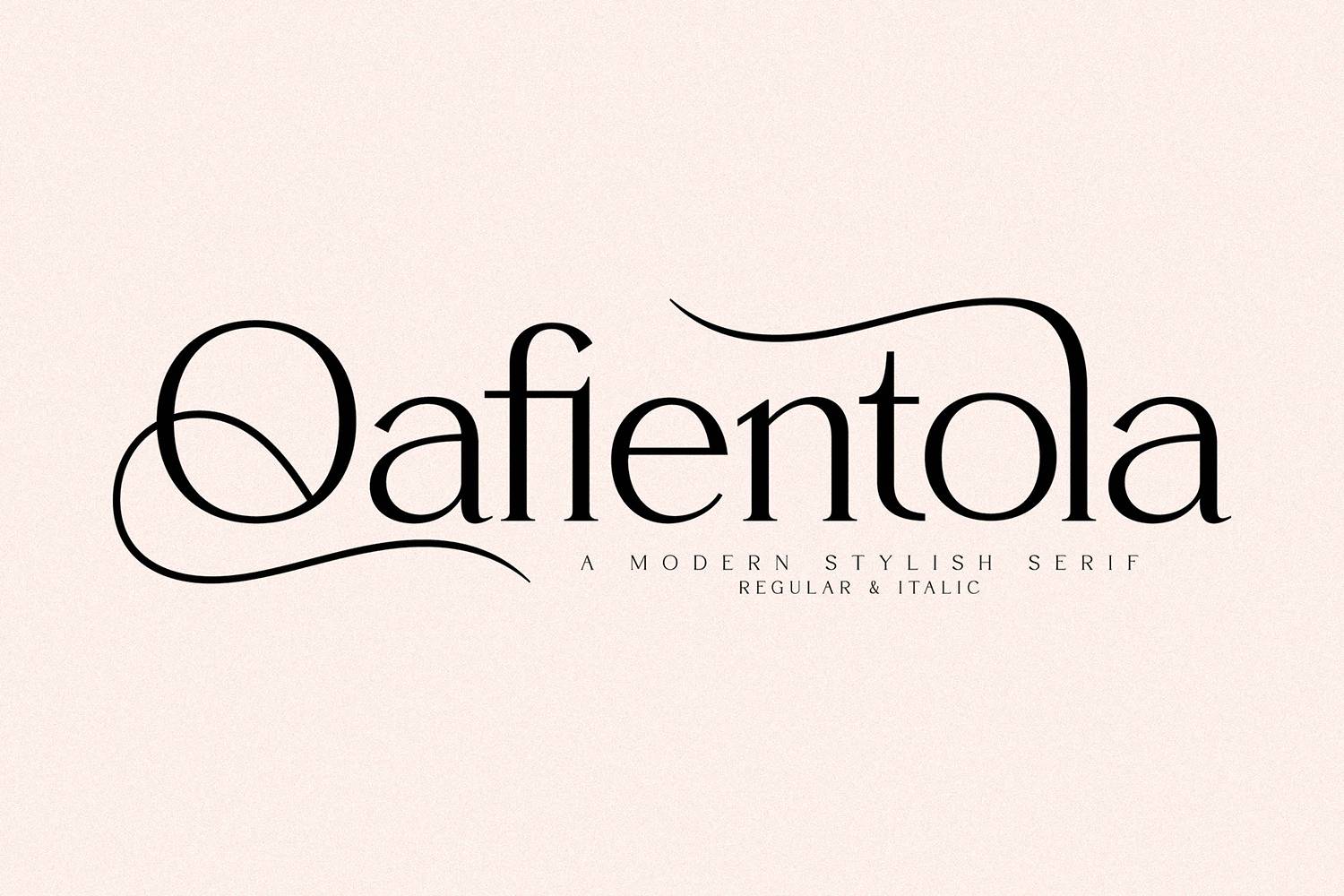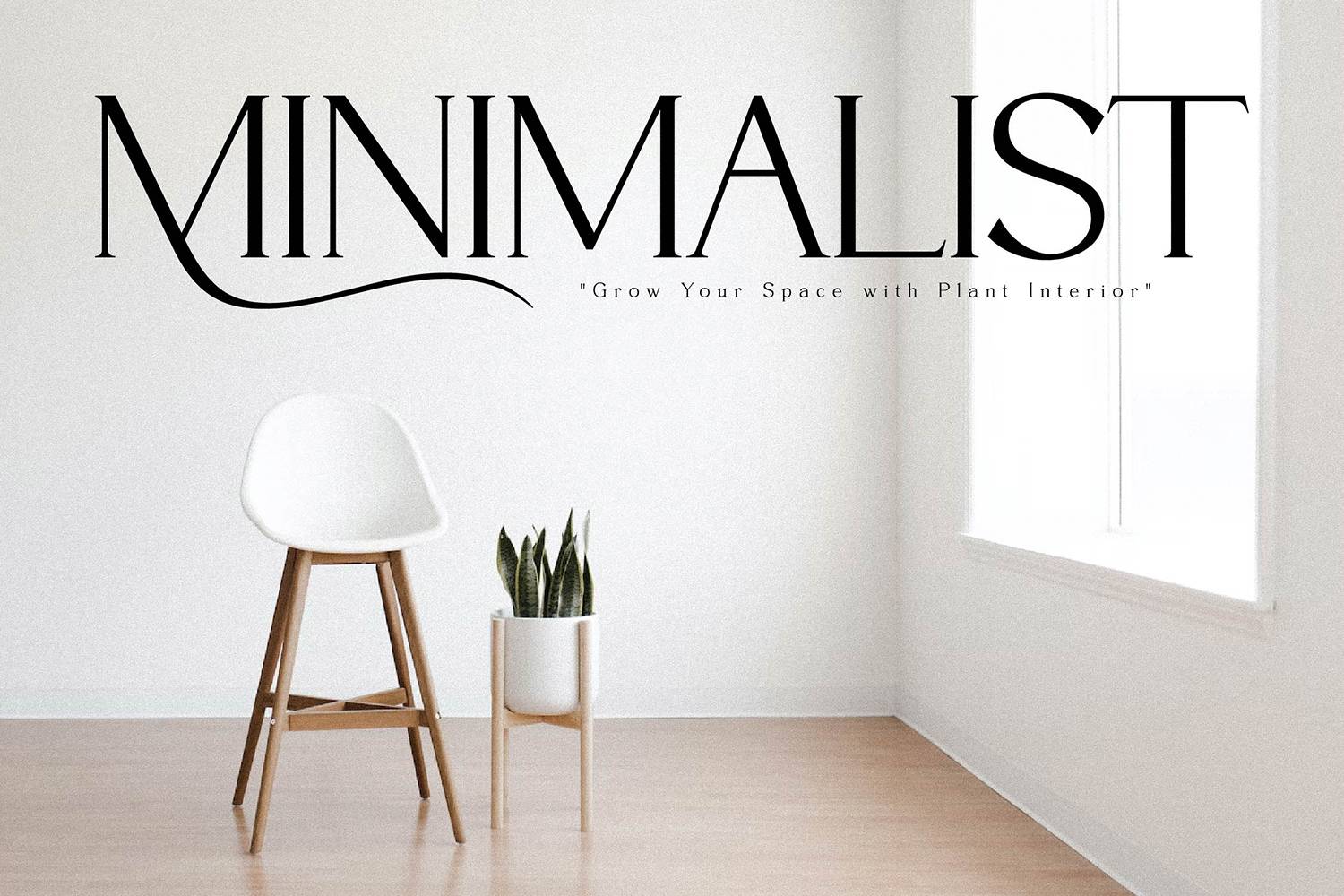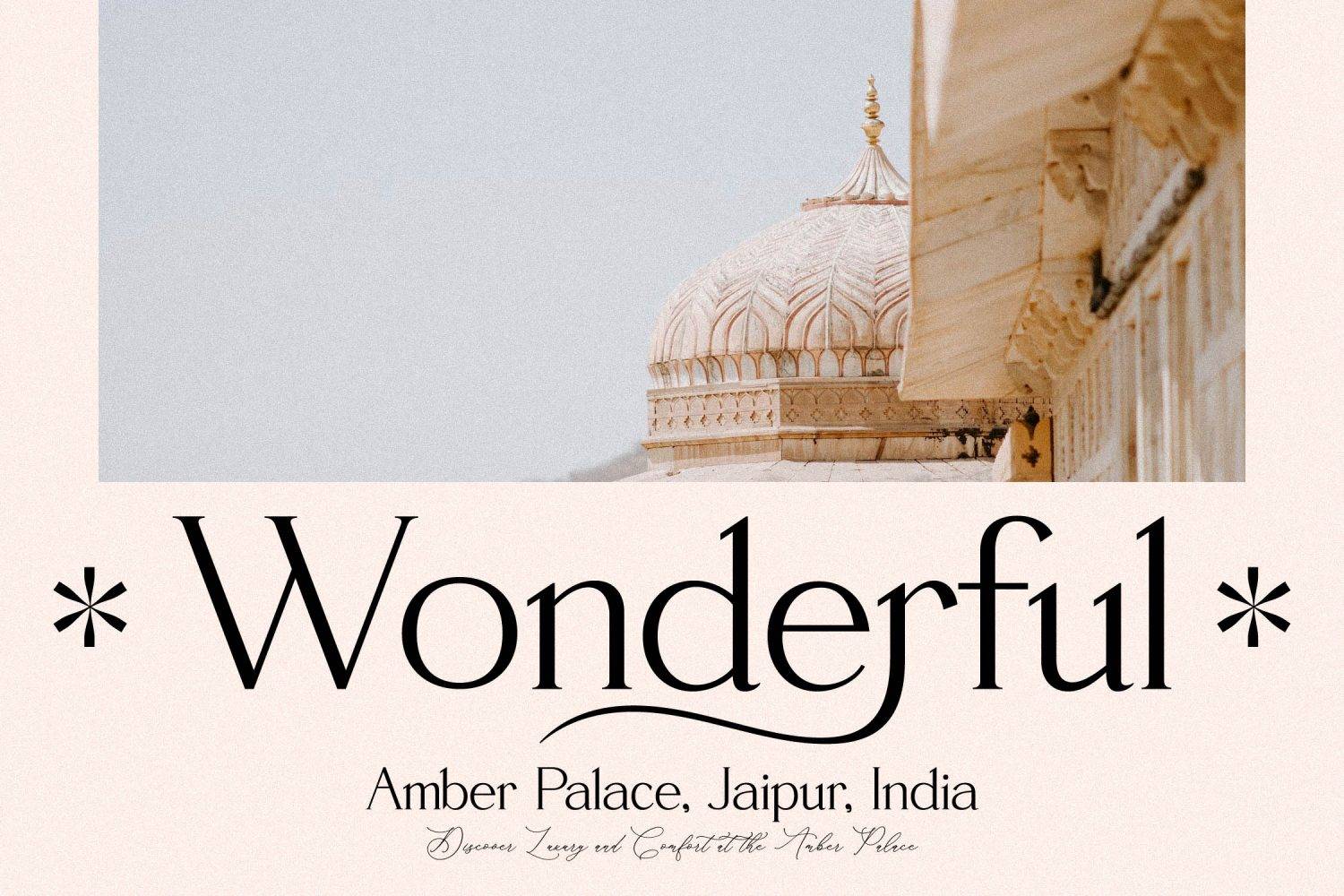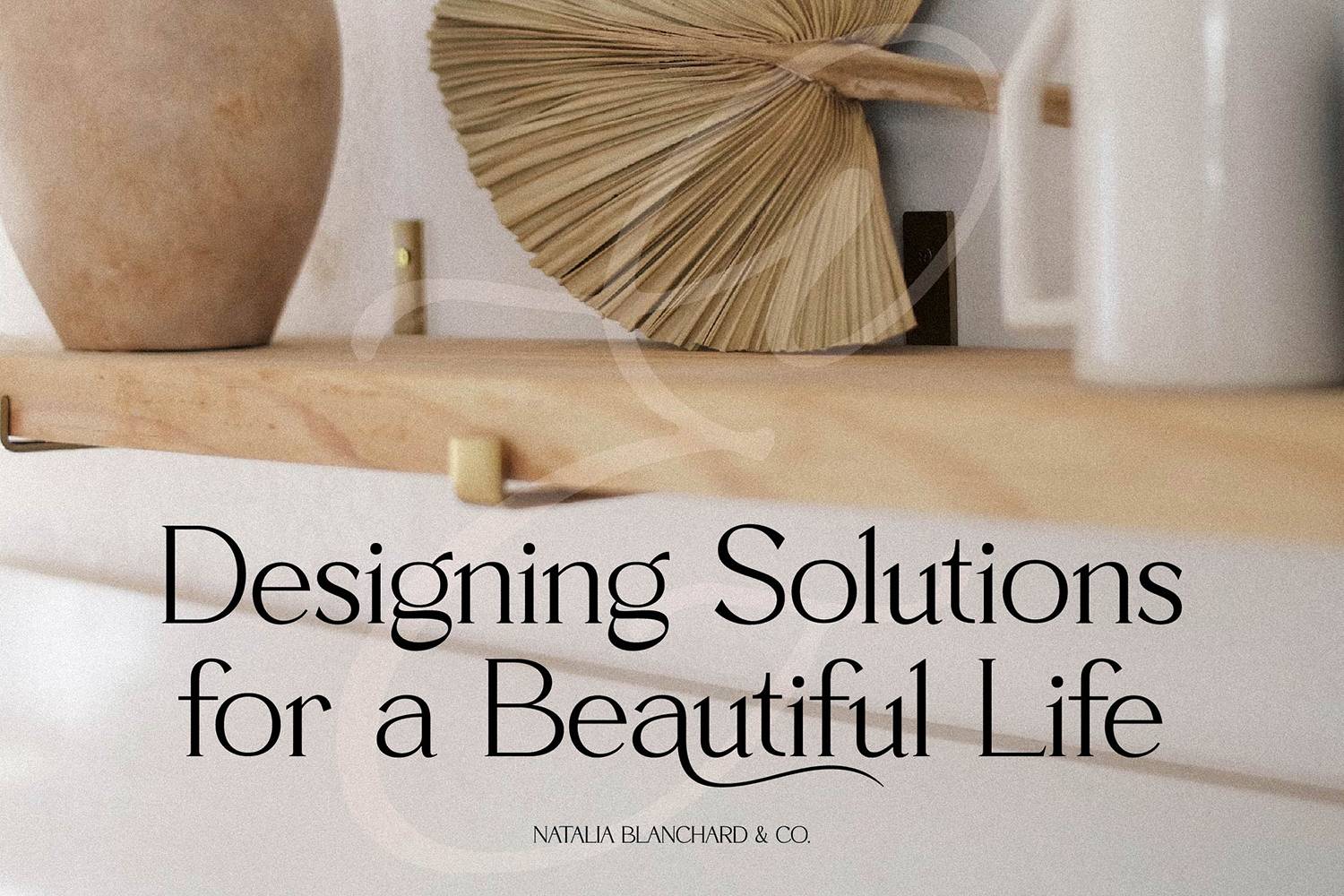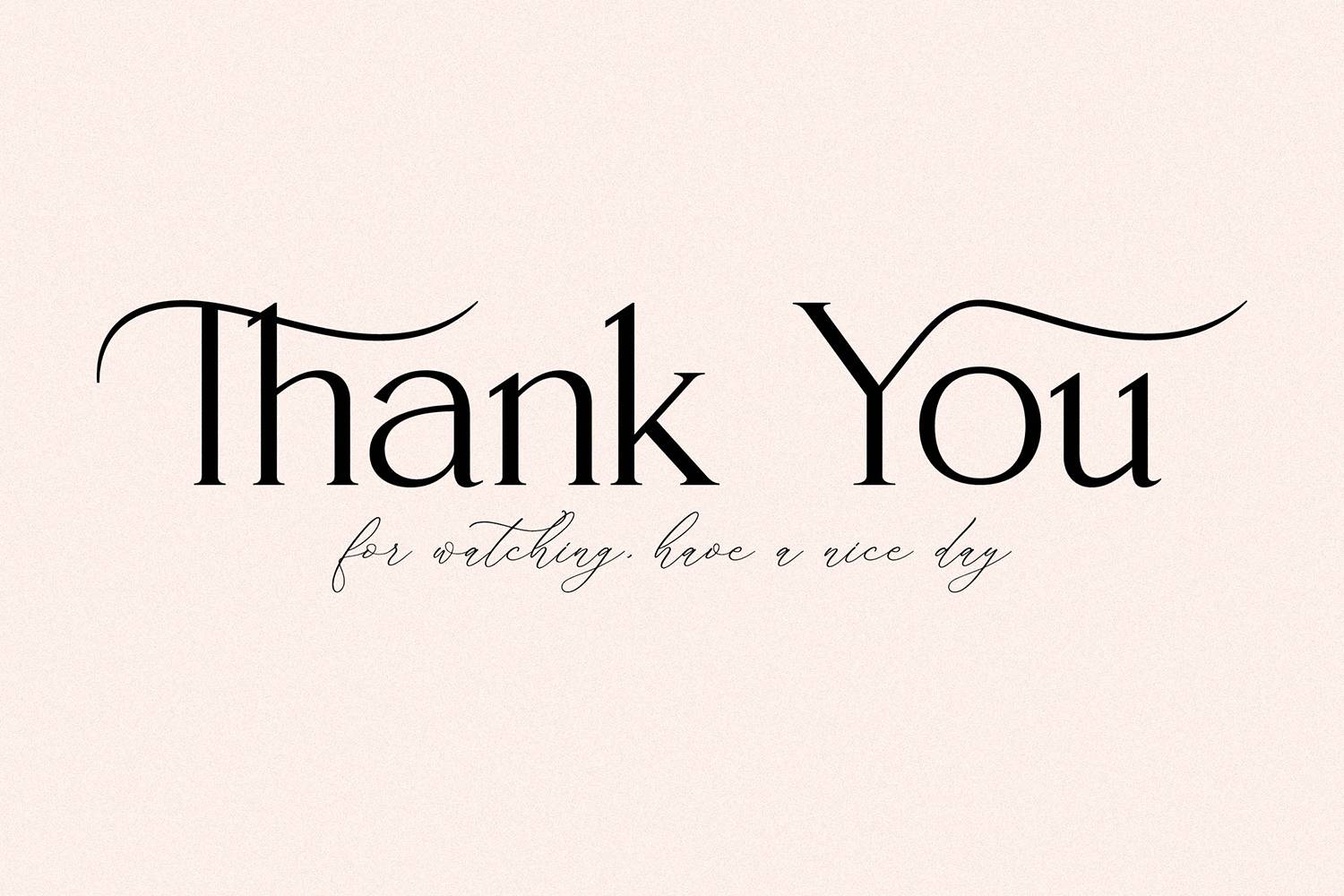
Qafientola is a refined serif font featuring elegant, thin strokes with high contrast and a delicate, modern Didone style. Its tall x-height and clean, sharp serifs give it a sophisticated and graceful appearance, making it ideal for luxury branding, editorial design, and upscale headlines. This font’s timeless charm and precise details lend a polished, professional feel to any high-end project.
Qafientola Font
About Qafientola Font